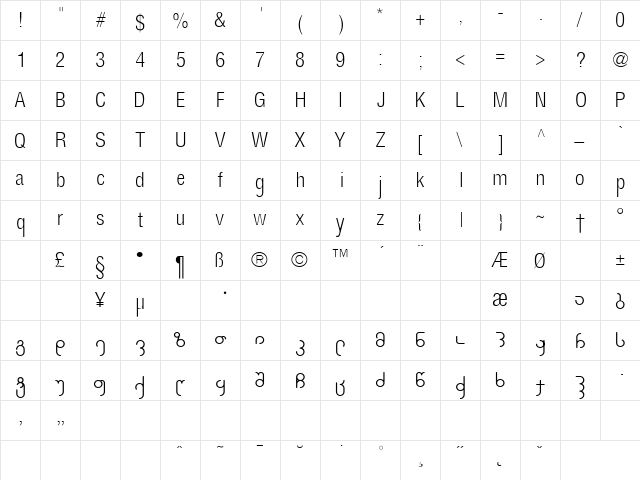
Siradze Regular
Design Context for Siradze Typeface
Siradze offers clean, dependable letterforms without strong stylistic allegiance, making it a practical choice for designers who need flexibility.